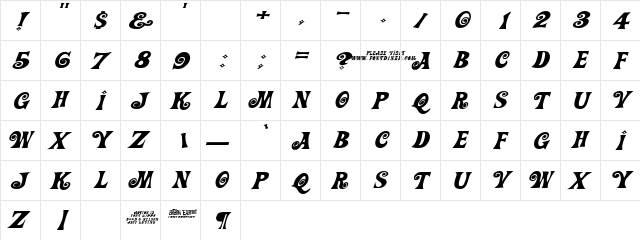
Action Is JL Expanded Italic
| Foundry | Jeff's Fonts & Dingbats |
| Designer | Jeff Levine/Brad Nelson (conversion by Ray Larabie) |
Design Context for Action Is JL Typeface
Action Is JL is a composed and adaptable typeface that performs quietly and consistently across a wide range of design contexts. The dynamic lean of this cut emphasises speed and emphasis in any layout.
Pro Tip: Use Action Is JL for emphasis, pull quotes, and subheadings where its slanted energy can add rhythm to the layout.